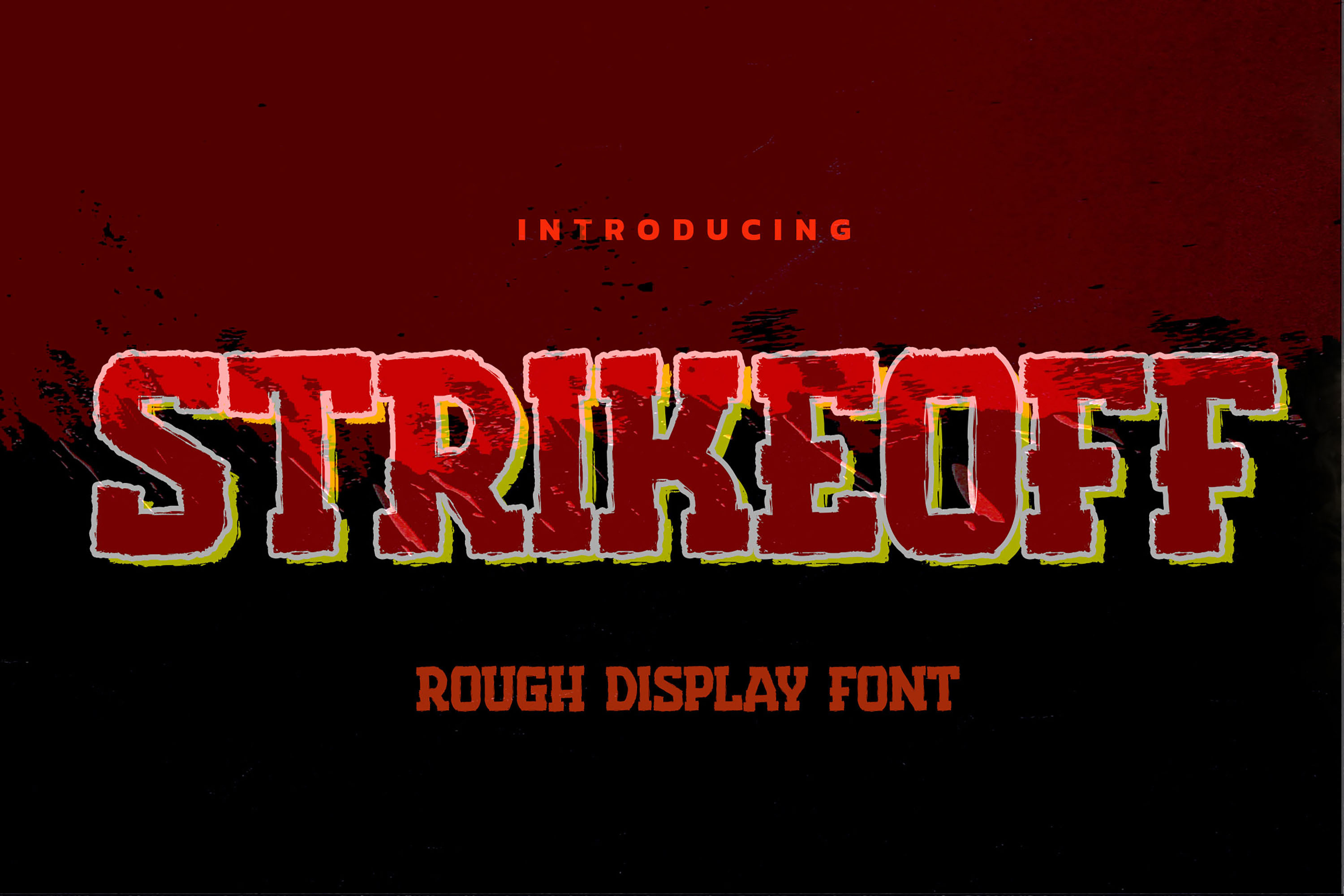
Strikeoff – Rough Display Font
Strikeoff is a bold and rugged display typeface crafted with a distressed, energetic character. Its strong edges, rough textures, and striking layered outlines give it an intense visual presence, making STRIKEOFF stand out in designs that demand power, grit, and bold expression. With its aggressive cuts and raw handcrafted feel, STRIKEOFF brings a dramatic punch to any layout, perfect for projects that need a fierce, impactful, and eye-catching style.
Great For
• sports & athletic branding • bold posters & powerful headlines • apparel designs • action-themed graphics • product packaging with strong character • urban, grunge, or extreme-style visuals • music covers, festival banners & event titles
Style & Feel
bold • rough • gritty • energetic • powerful • aggressive